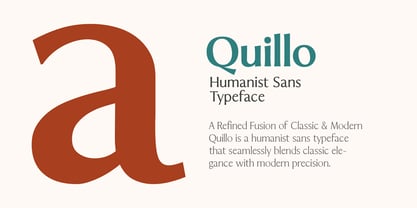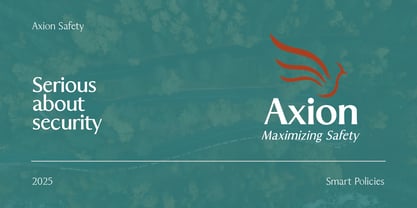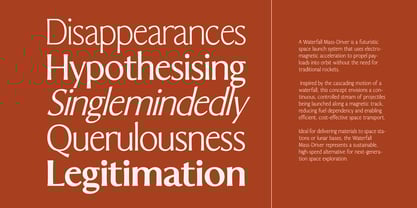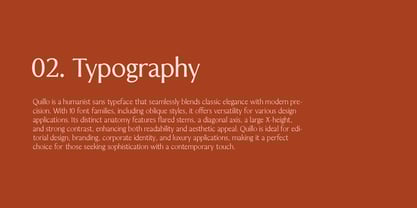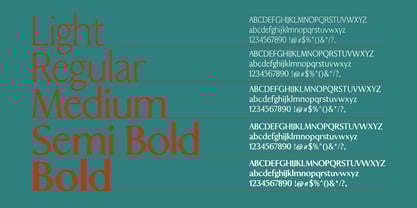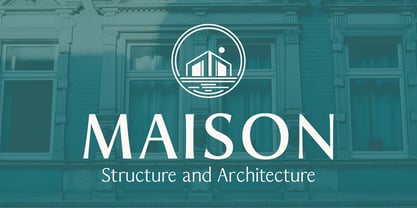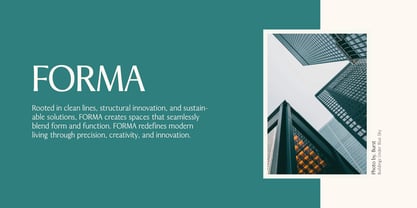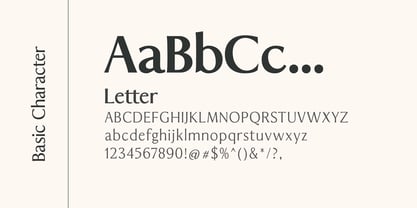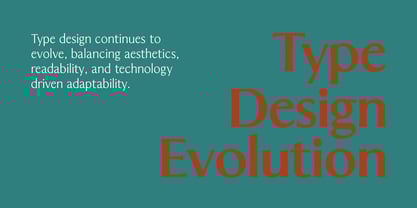
Quillo
by XdCreative
The Quillo Font Family was designed by Faldy Kudo and published by XdCreative. Quillo contains 10 styles and family package options.
Quillo – A Refined Fusion of Classic & Modern
Quillo is a humanist sans typeface that seamlessly blends classic elegance with modern precision.
With 10 font families, including oblique styles, it offers versatility for various design applications.
Its distinct anatomy features flared stems, a diagonal axis, a large X-height, and strong contrast, enhancing both readability and aesthetic appeal.
Quillo is ideal for editorial design, branding, corporate identity, and luxury applications, making it a perfect choice for those seeking sophistication with a contemporary touch.
Designers: Faldy Kudo
Publisher: XdCreative
Foundry: XdCreative
Design Owner: XdCreative